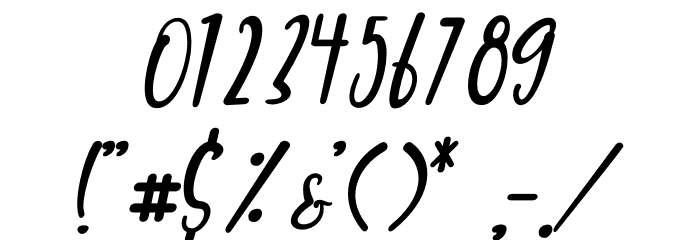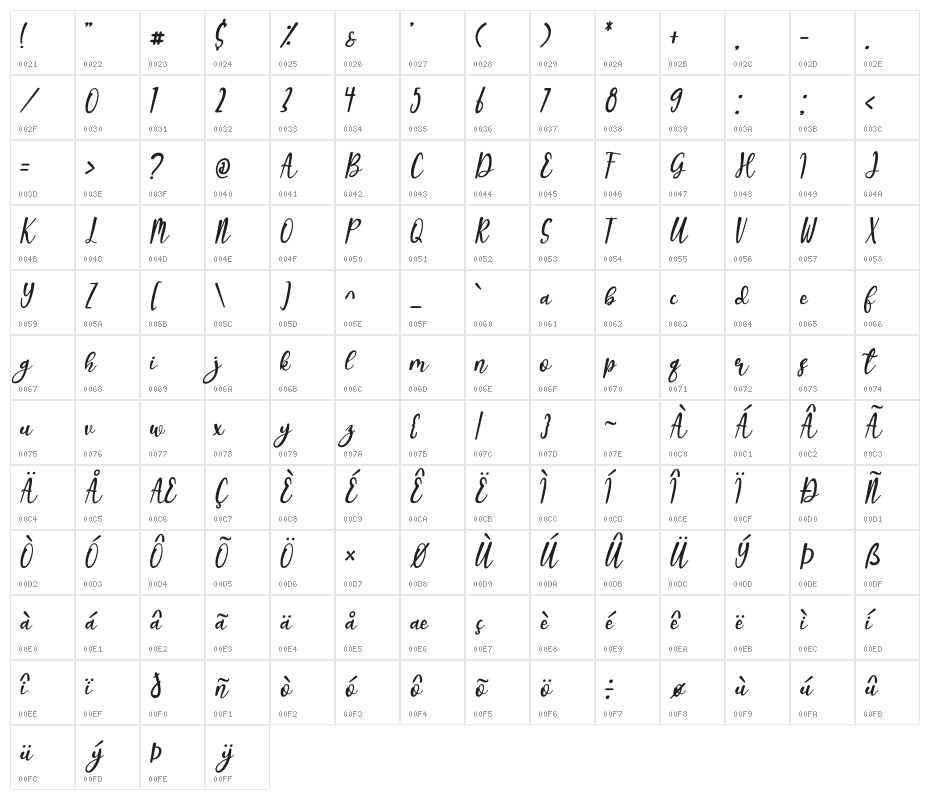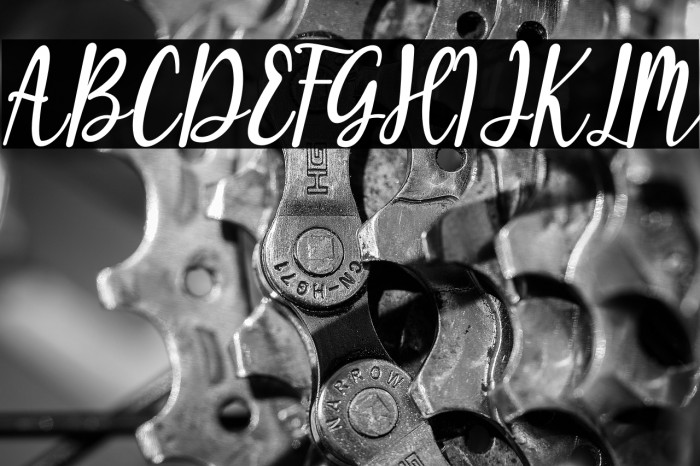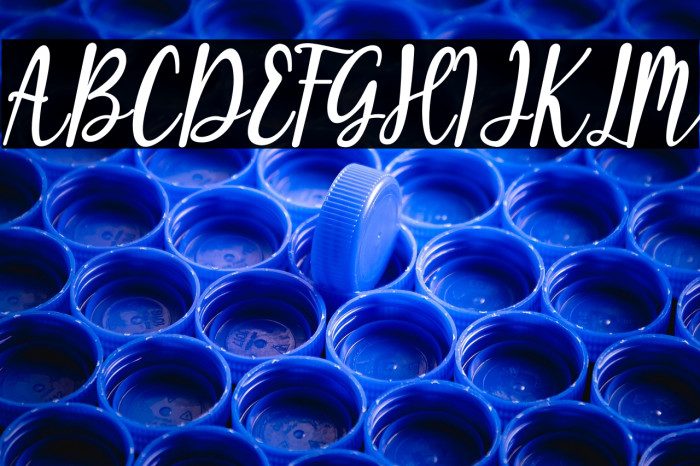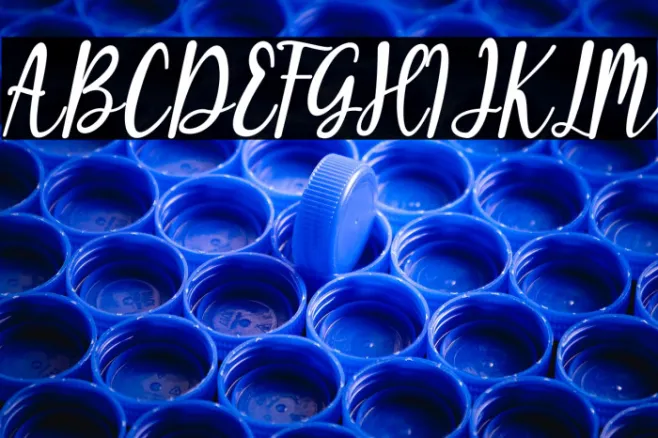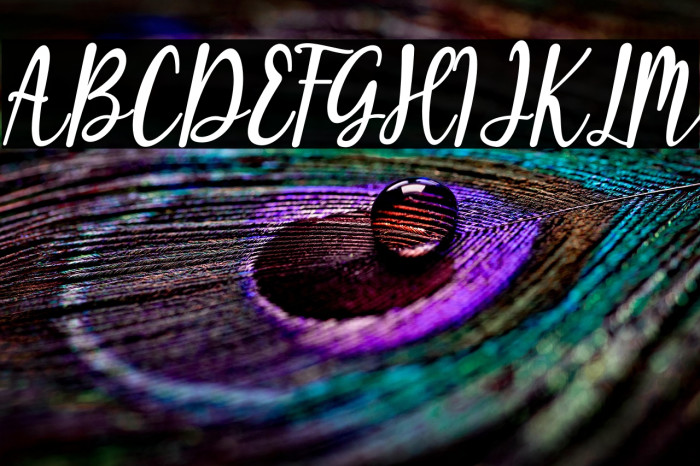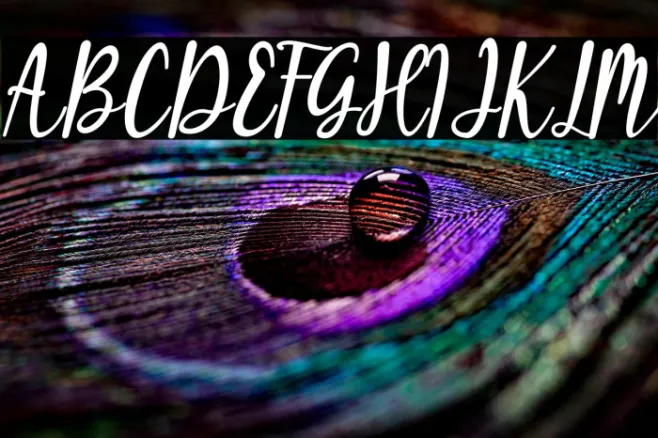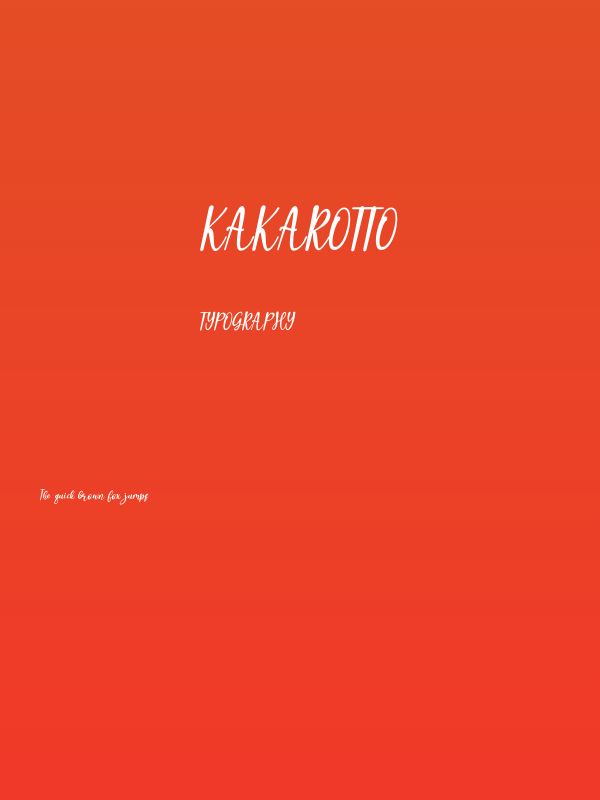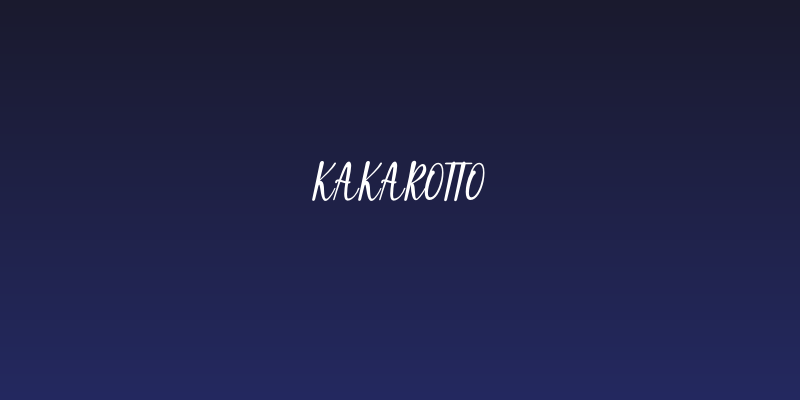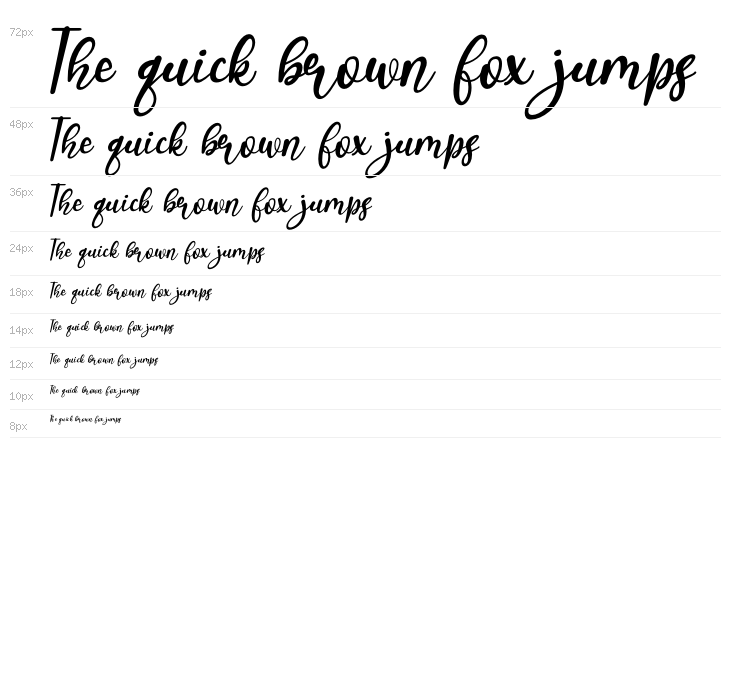
Kakarotto Font
Kakarotto Description
This font features a dynamic and flowing script style, characterized by its elegant and fluid letterforms. The uppercase letters exhibit a graceful and slightly elongated appearance, while the lowercase letters maintain a consistent rhythm with smooth curves and loops. The font's design incorporates a sense of movement and energy, making it visually appealing and suitable for creative projects. The numerals and special characters are crafted with the same attention to detail, ensuring a cohesive look across all elements. Its overall aesthetic is both modern and timeless, offering versatility for various design applications.
| Proposed Projects | Ideal for wedding invitations, branding, greeting cards, and elegant packaging designs. |